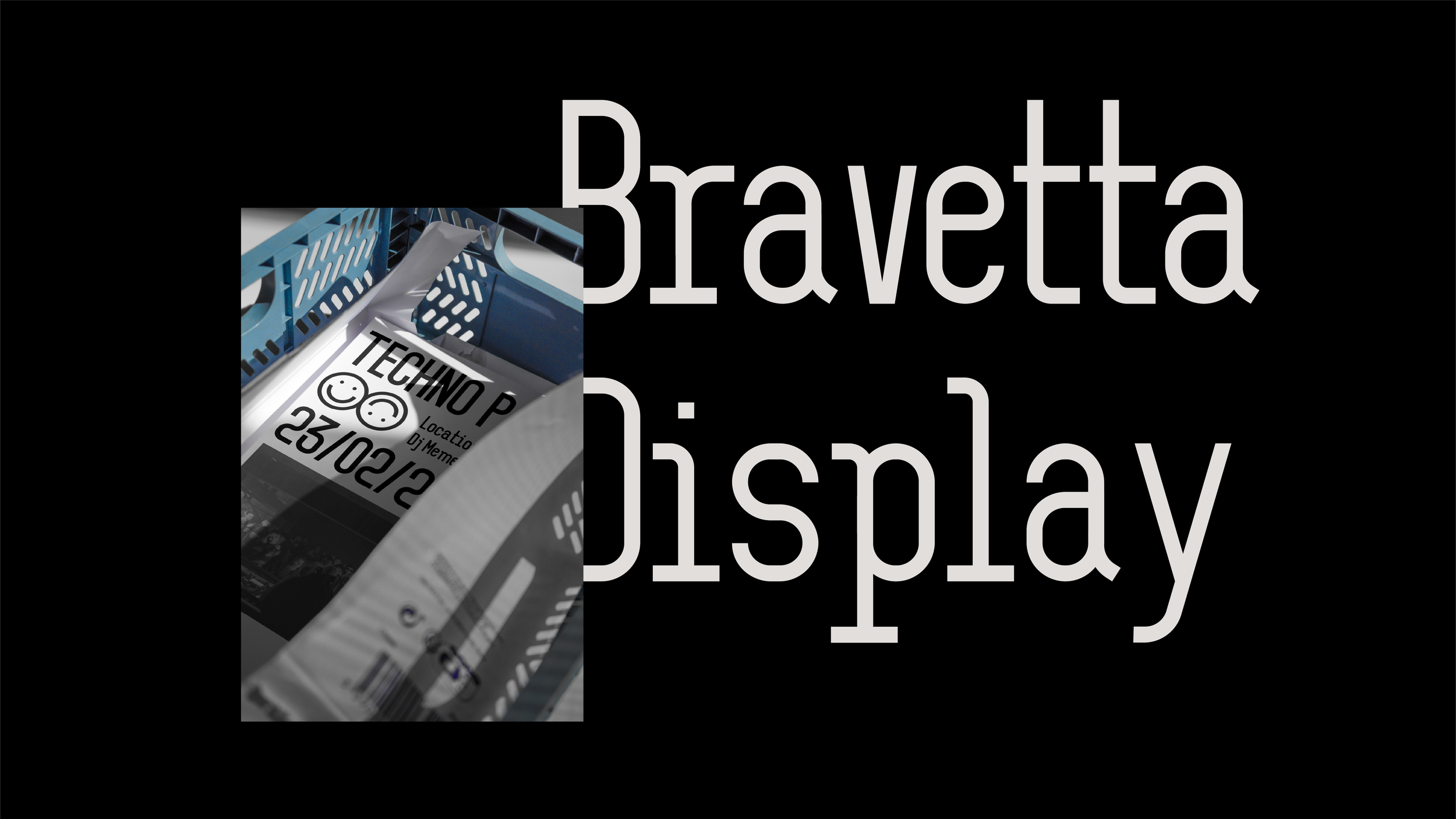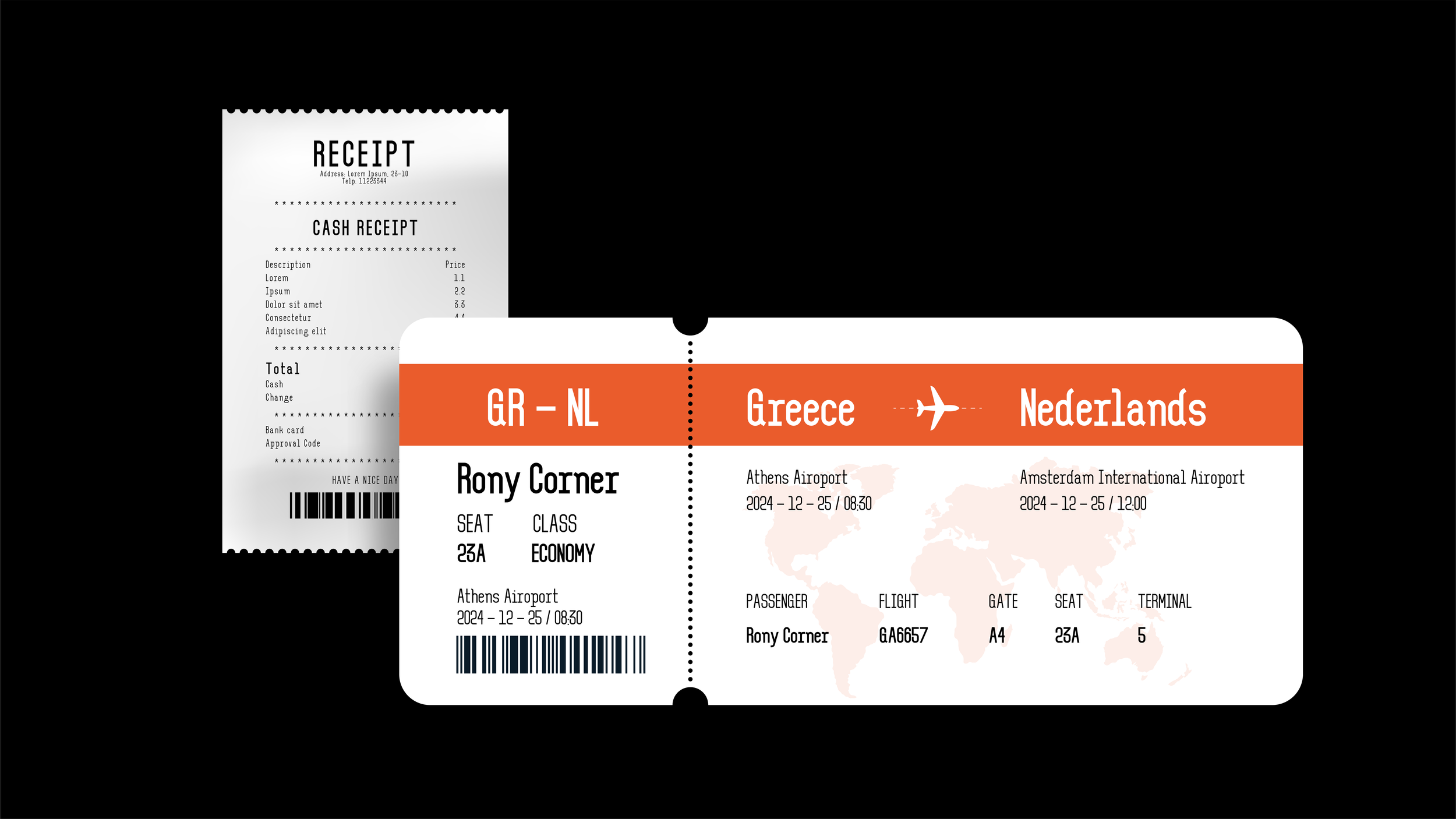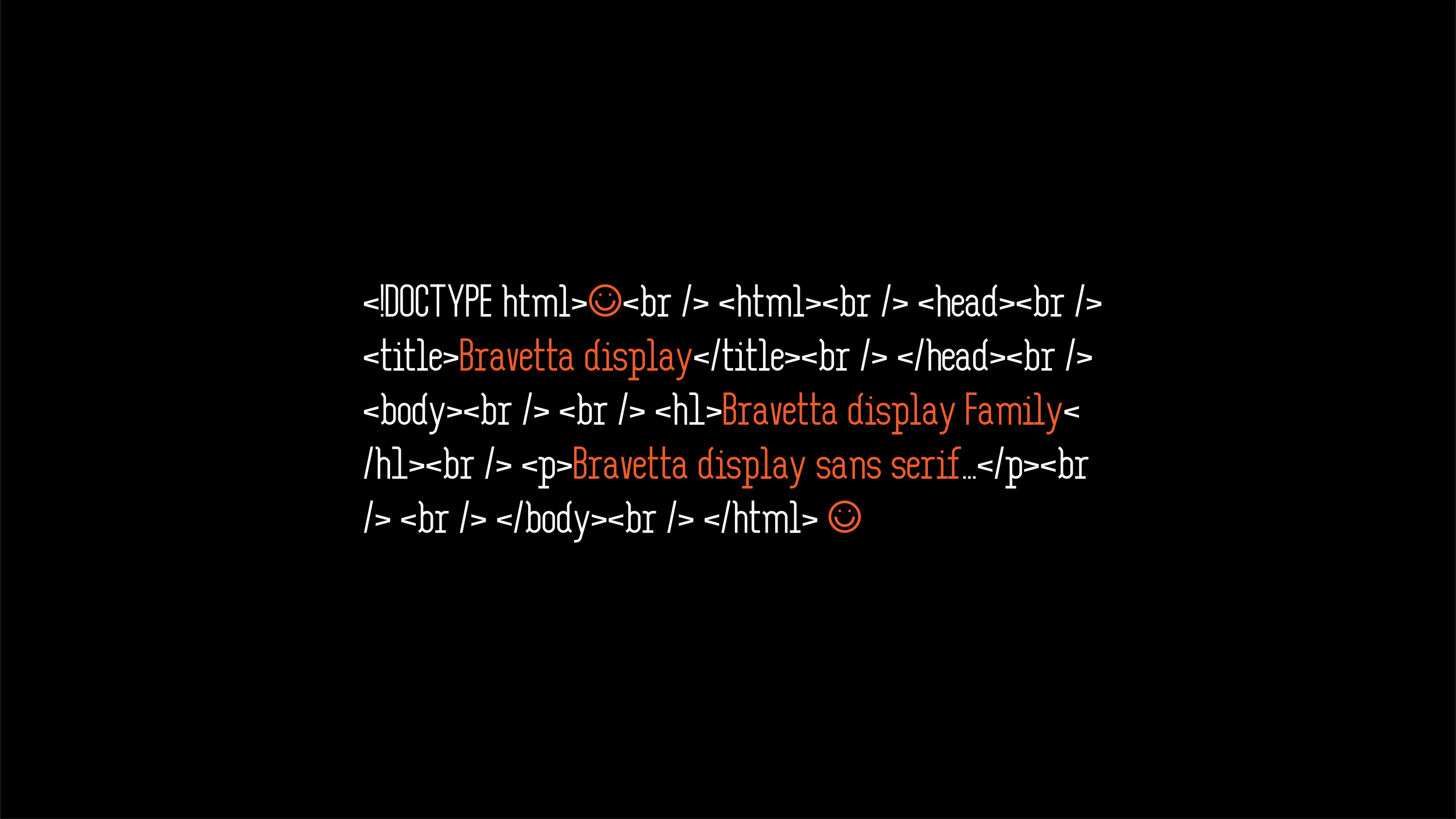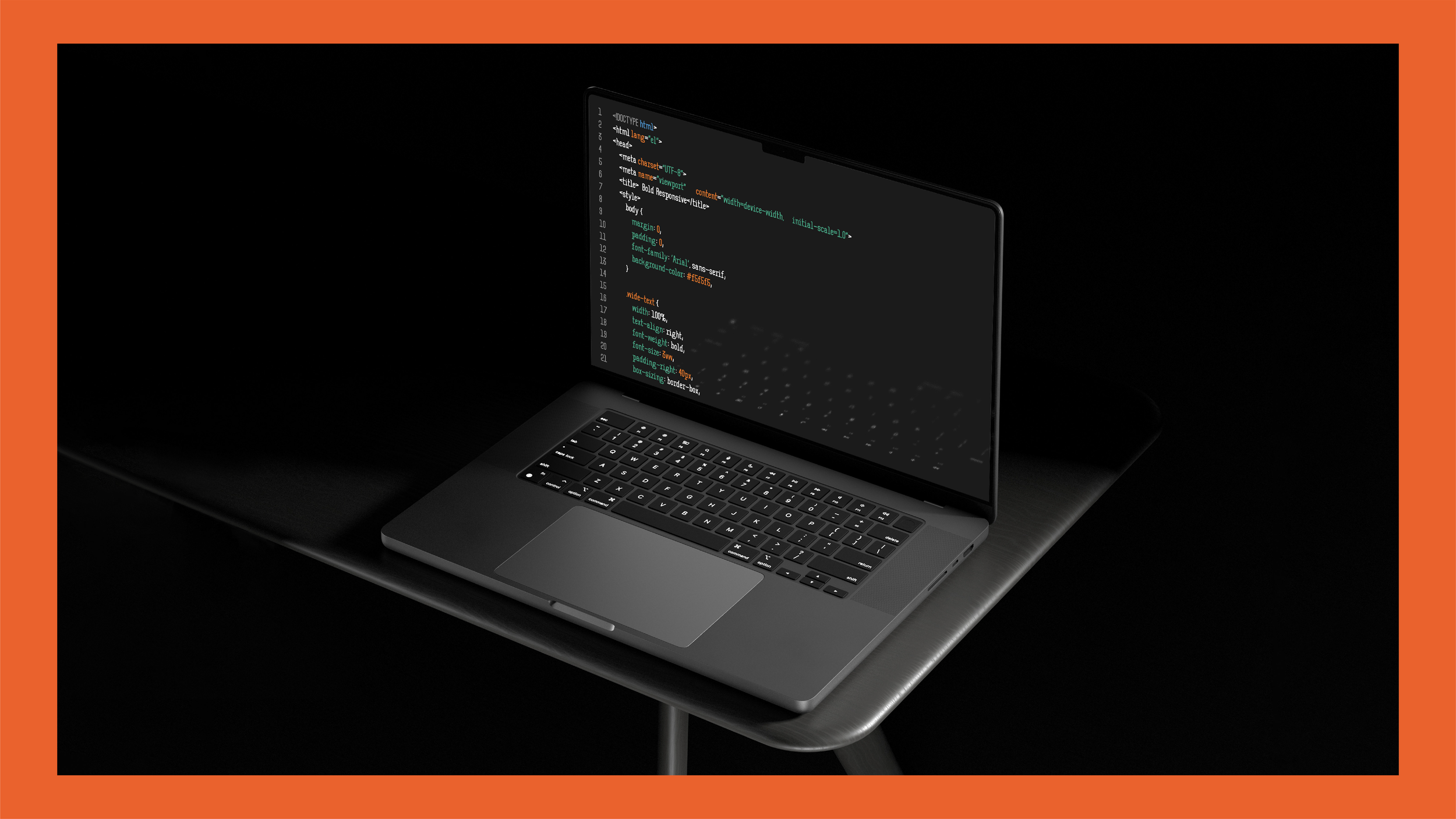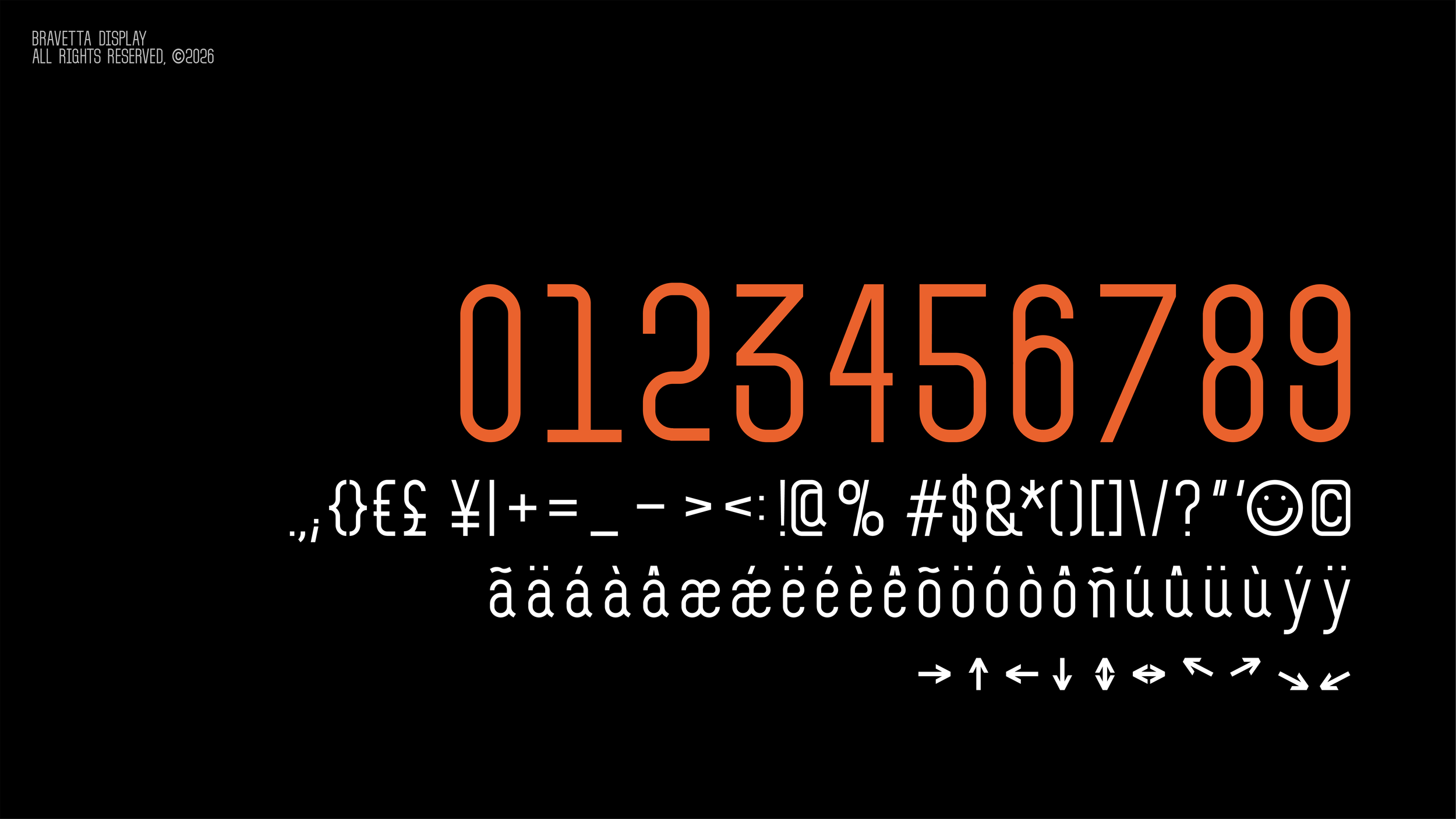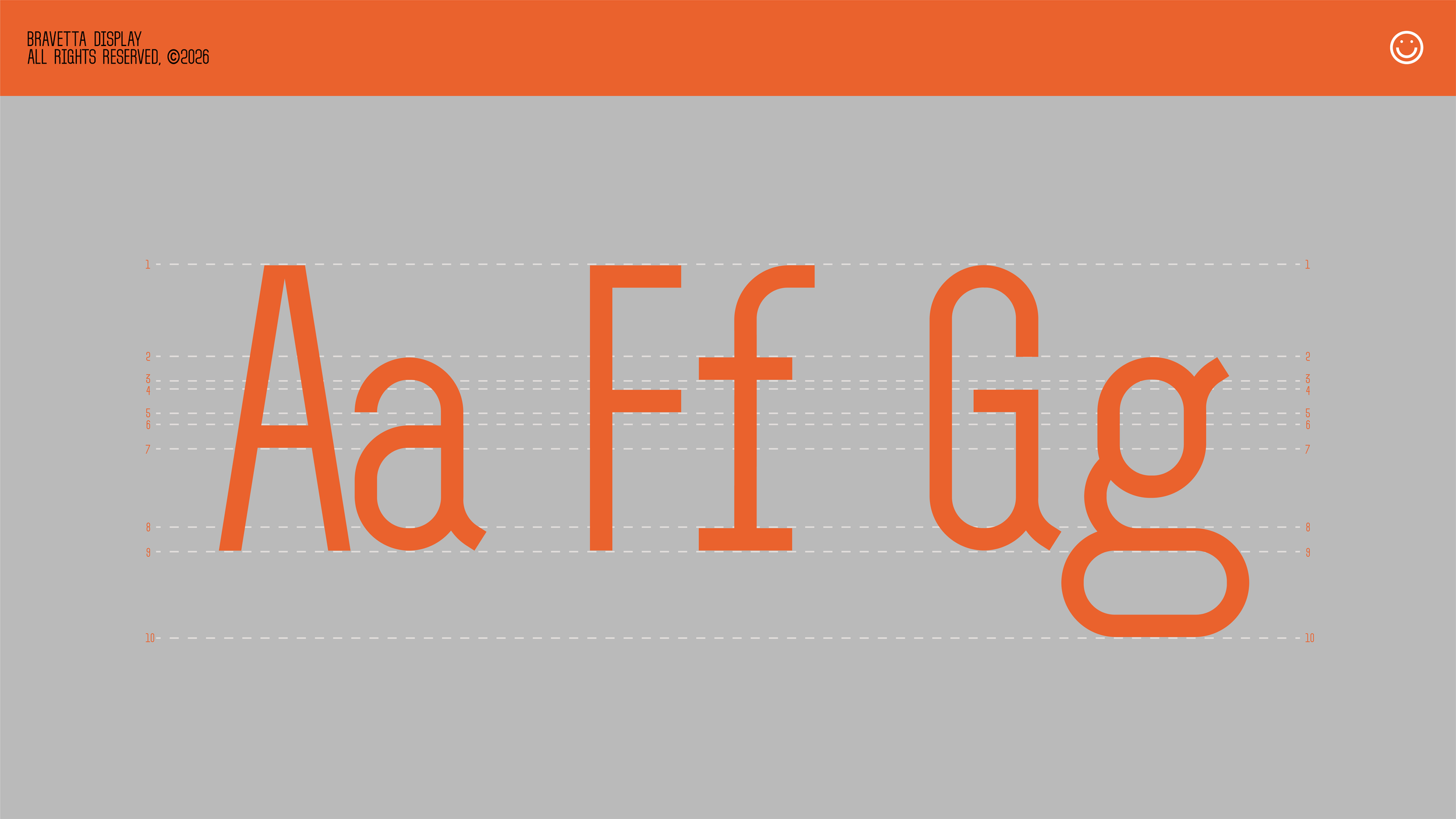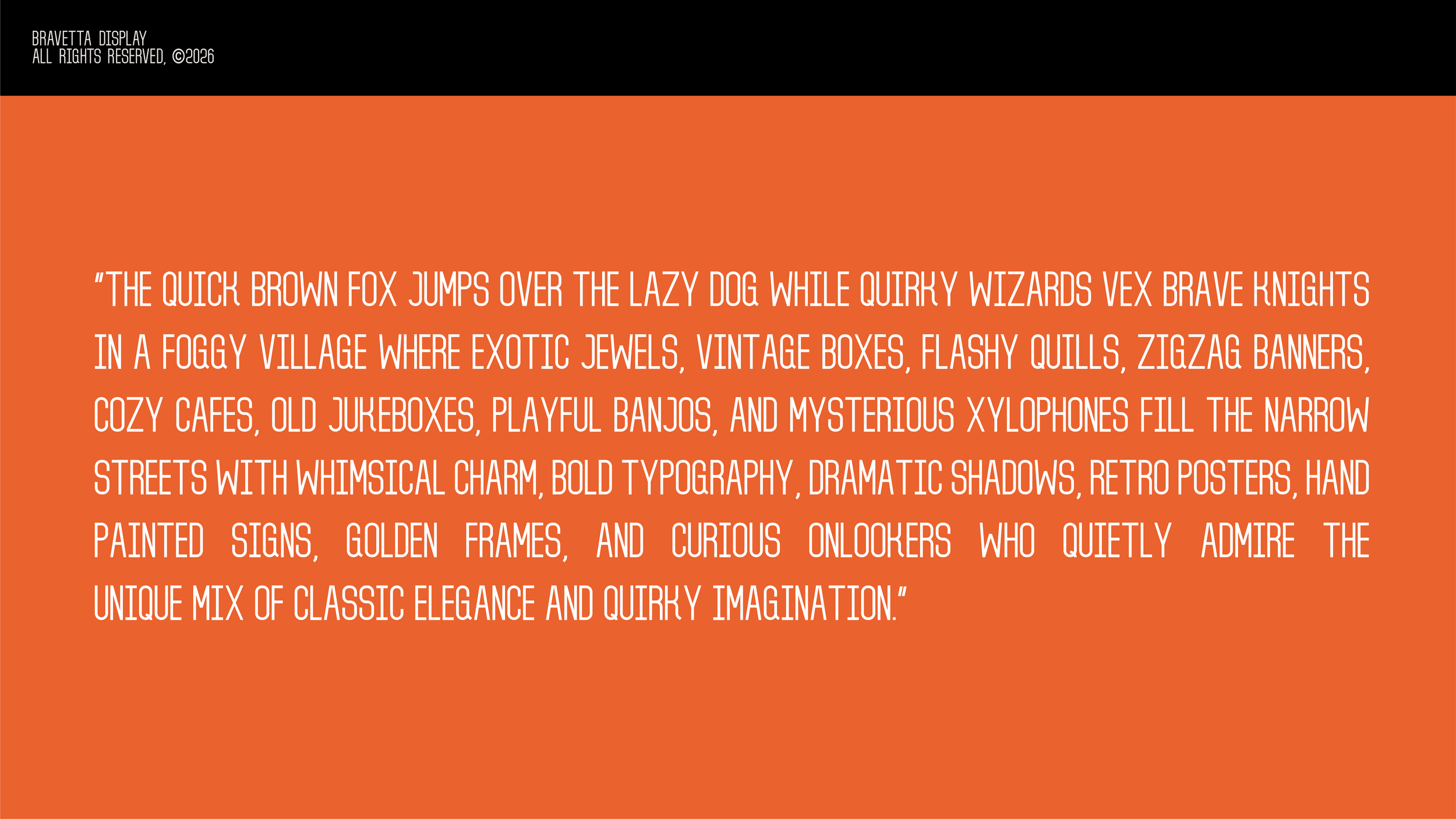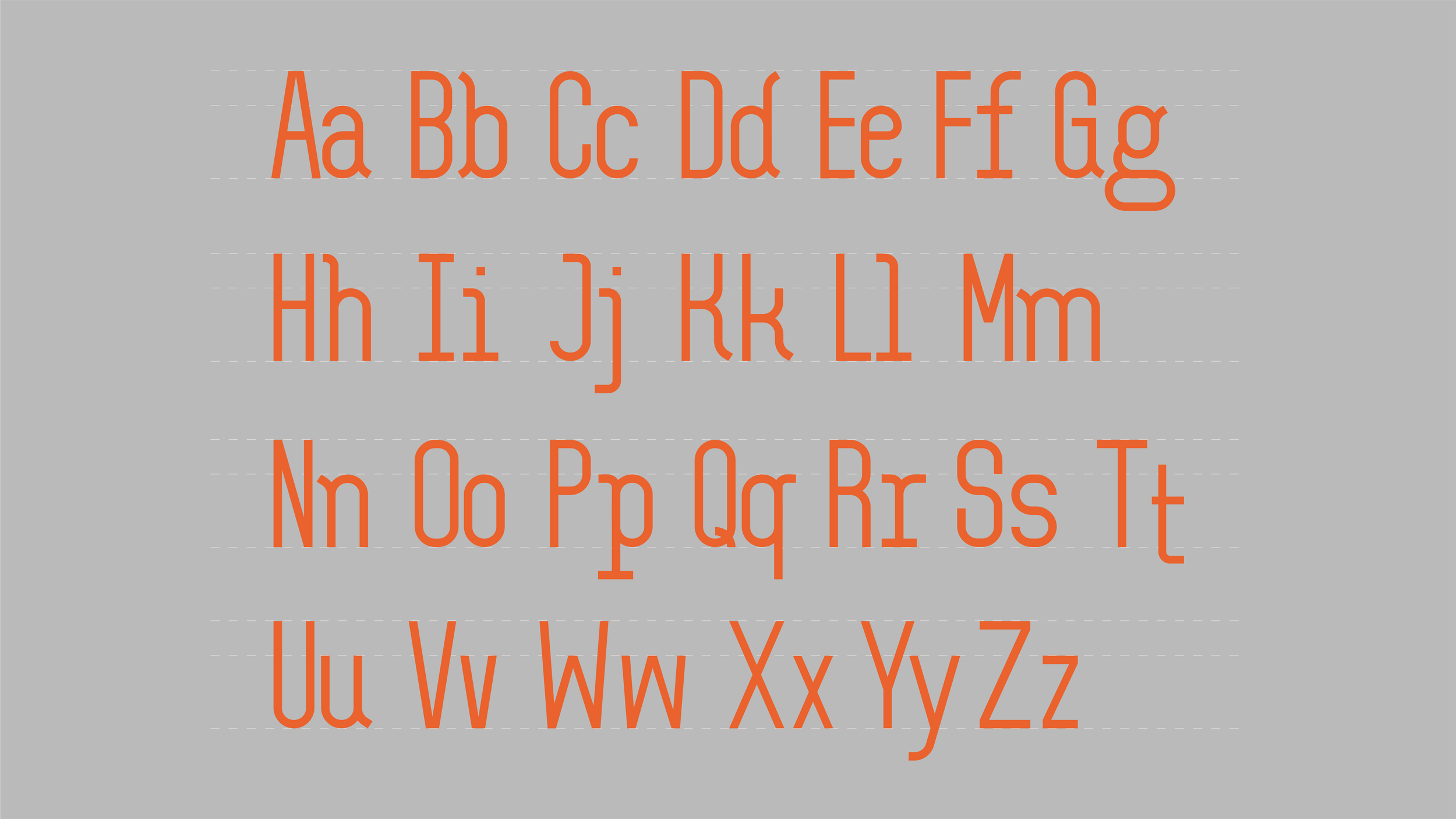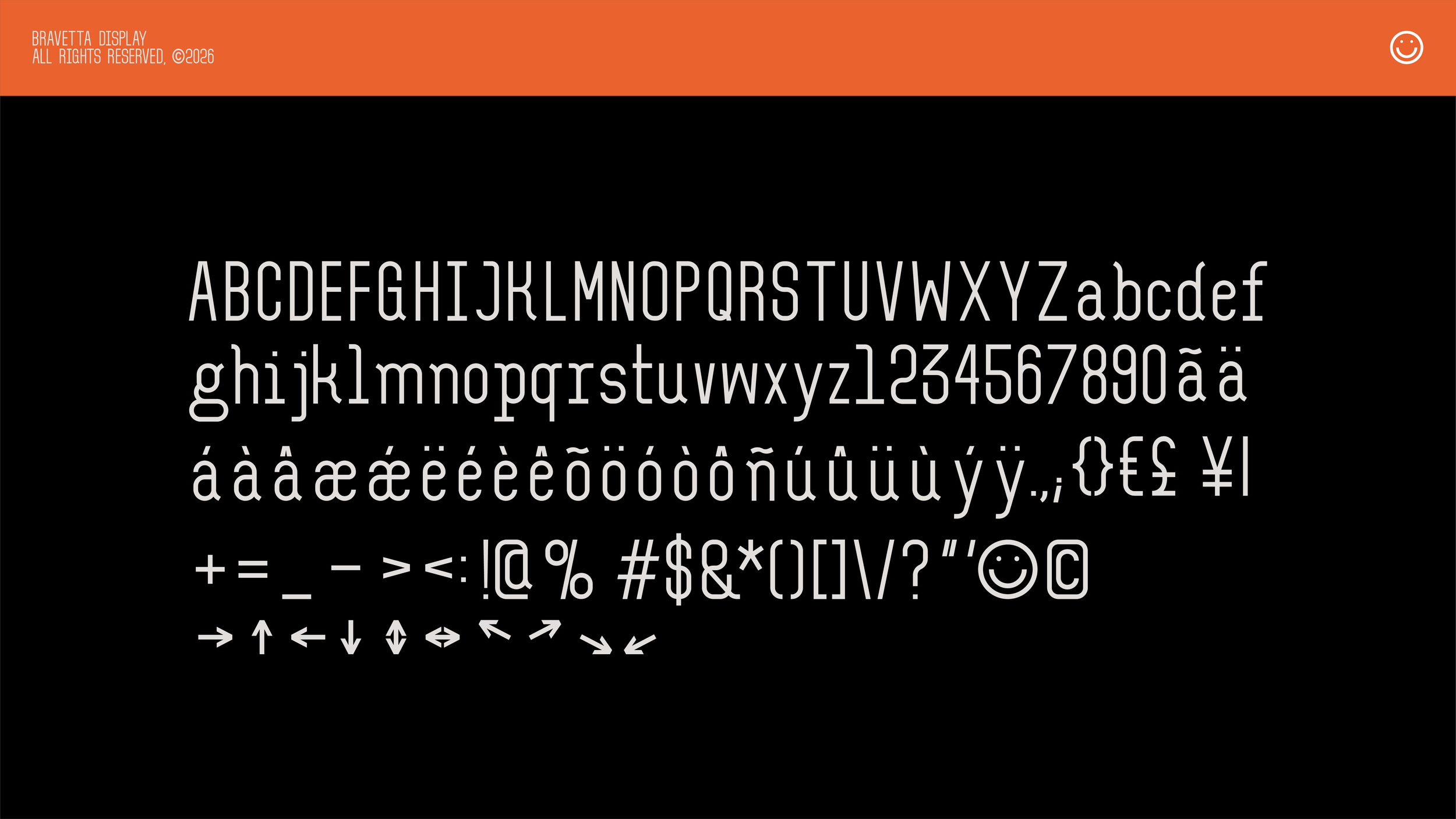
Bravetta Typeface
Display Sans Serif Typeface
Bravetta Display is a minimalist geometric sans serif typeface with subtle influences from grotesque fonts.
The delicate details at the terminals give it a distinctive character, making it stand out while remaining clean and modern.
It was designed for the purpose to be used across a wide range of media. The typeface is available in two weight styles,
and includes an extensive set of symbols. Bravetta Display supports the Latin script, enabling easy use across
most European languages that rely on this alphabet.